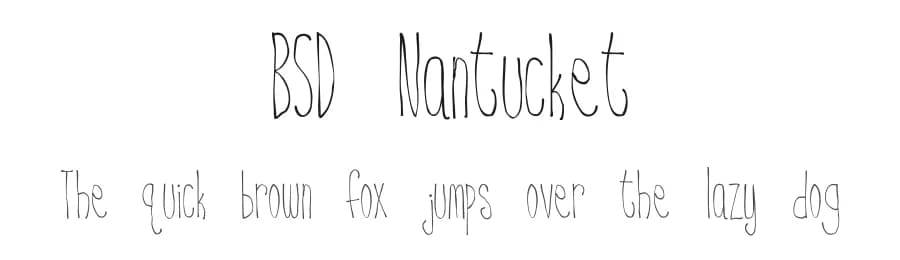
About BSD Nantucket Font
BSD Nantucket is a script & handwritten font designed by Blue Sky. It includes 98 glyphs, a regular weight, TTF (TrueType) format, and 104 languages. BSD Nantucket is free to download; check the license details on this page before commercial use. Script & handwritten fonts like BSD Nantucket work best for wedding invitations, greeting cards, signatures, and elegant branding.
BSD Nantucket Font is a script font that shines as a display or heading face. Pair it with a clean sans-serif or serif font for body text β the contrast creates a clear hierarchy while the two styles stay balanced and easy to read.
BSD Nantucket Font
BSD Nantucket Font is a script handwritten typeface by Blue Sky, ideal for logos, invitations, branding, and creative projects.